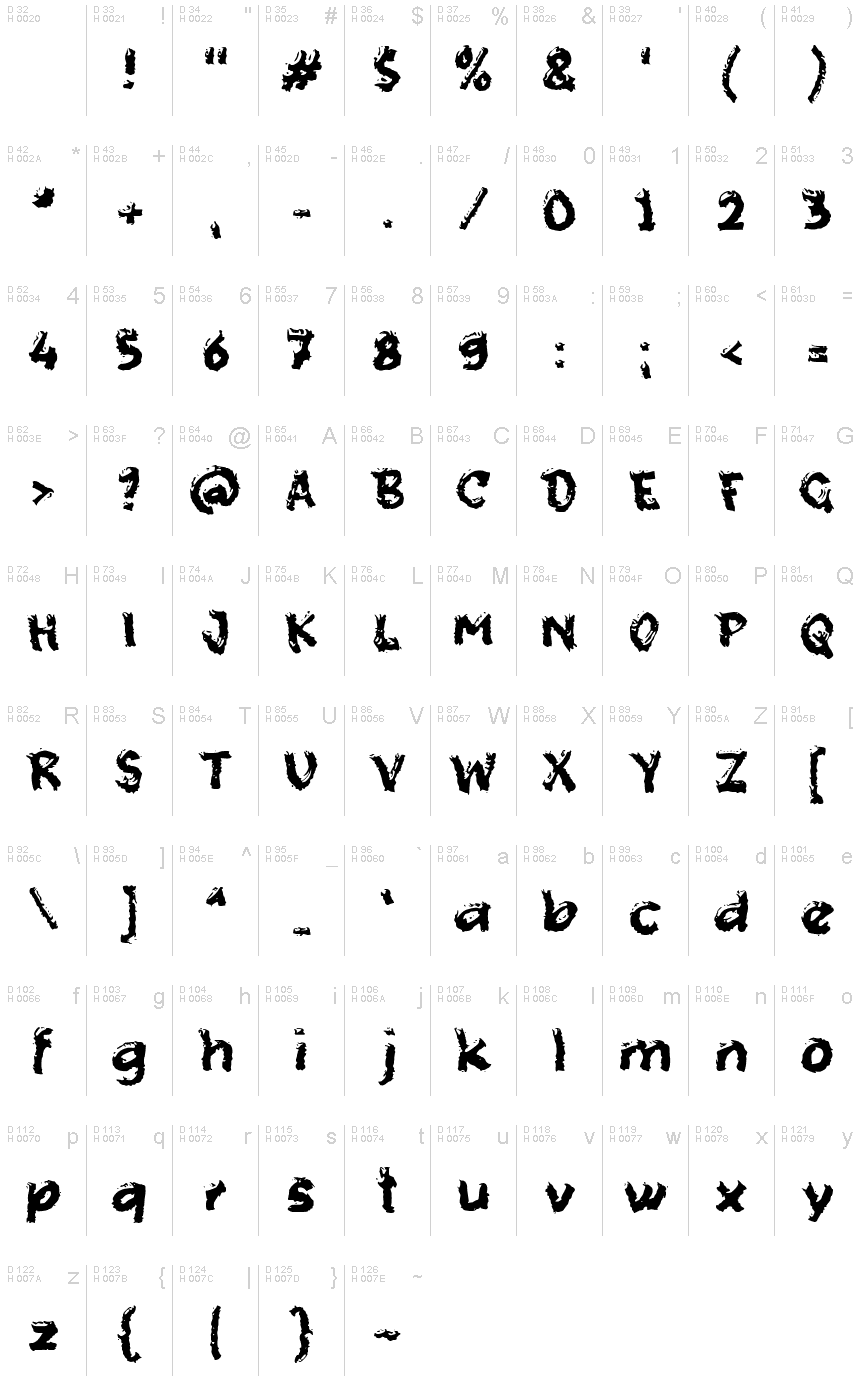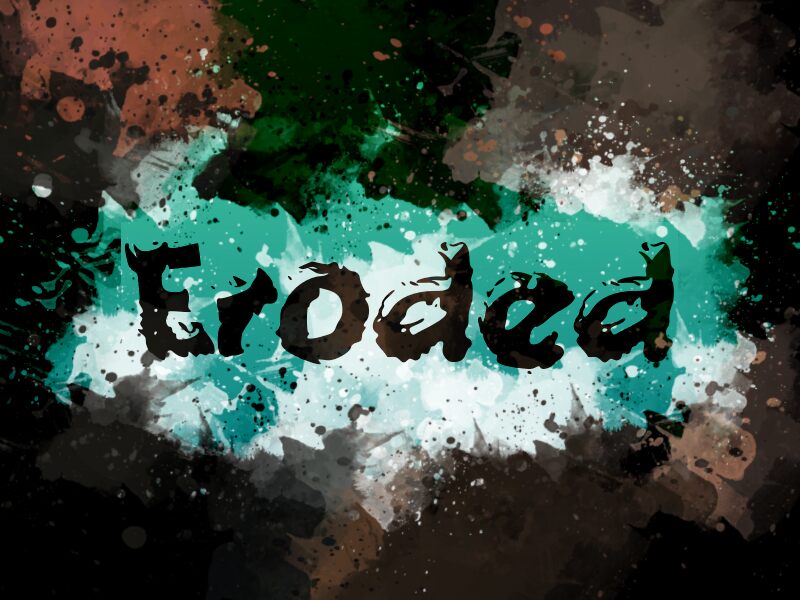
Eroded
Meet Eroded, the extra-bold display font by wep that's perfect for adding a rugged edge to your designs. With its eroded style, this font has a distressed and worn look that's ideal for conveying a vintage or grunge aesthetic. Use it on posters, album covers, and branding materials to give your projects an edgy feel. Whether you're designing for an indie band or a streetwear brand, Eroded is the ideal typeface to add some grit and personality to your work. Try it out for yourself and see how it can make your designs stand out from the crowd.